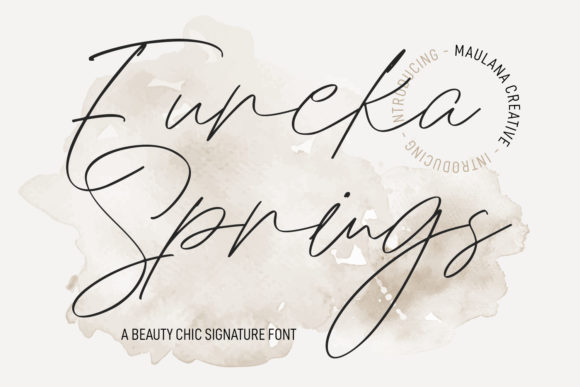
Unleash the captivating allure of Eureka Spring, an enchanting script font that dances gracefully across your designs, leaving a trail of charm and unwavering elegance. With its playful nature, Eureka Spring effortlessly transforms your words into enchanting visual symphonies, captivating audiences with its undeniable allure. Step into a world of pure artistry where your creative visions flourish, adorned with the whimsical strokes of Eureka Spring.
Immerse yourself in the beauty of carefully crafted characters, each imbued with a distinct personality and brimming with charm. Watch as they harmoniously intertwine, forming visual masterpieces that ignite the imagination and leave a lasting impression on all who behold them. Embrace the endless possibilities that Eureka Spring presents, allowing your creativity to soar and your designs to shine with unparalleled radiance.
Unleash the power of Eureka Spring and elevate your designs to new heights of sophistication and elegance. Its versatile nature seamlessly adapts to a myriad of projects, from logos and branding to website designs and social media graphics. Witness the transformation as ordinary words morph into captivating headlines, captivating your audience and leaving them yearning for more.
With Eureka Spring, you'll embark on a creative journey like no other, where your ideas take center stage and shine brighter than ever before. Its playful spirit invites you to experiment, to explore the boundaries of your imagination and create designs that leave an indelible mark on the world. Embrace the artistry of Eureka Spring and unlock the gateway to a creative renaissance.